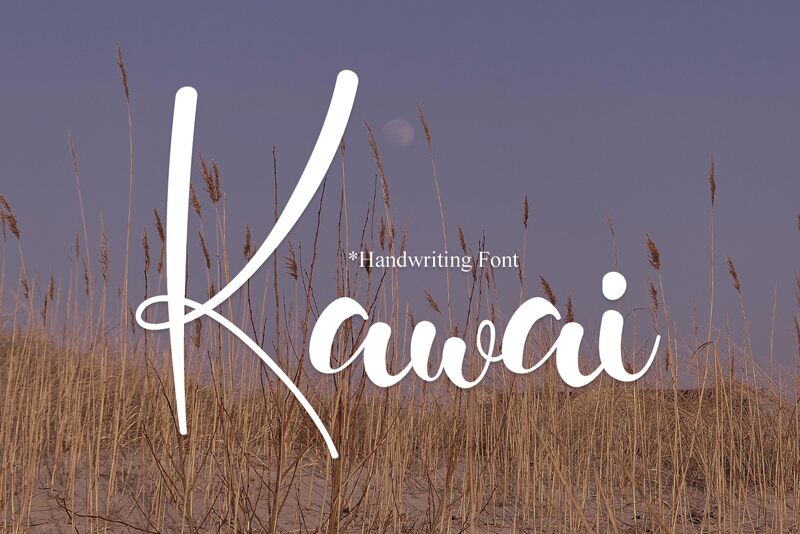
Kawai
Kawai font by Erik Studio is a free handwritten font with calligraphic influences that appears elegant and modern. The sophisticated design carries an impressive flow of expressive and captivating elements to inspire your next project. You can make it the favorite typeface for your user-oriented designs where lettering reflects important values.